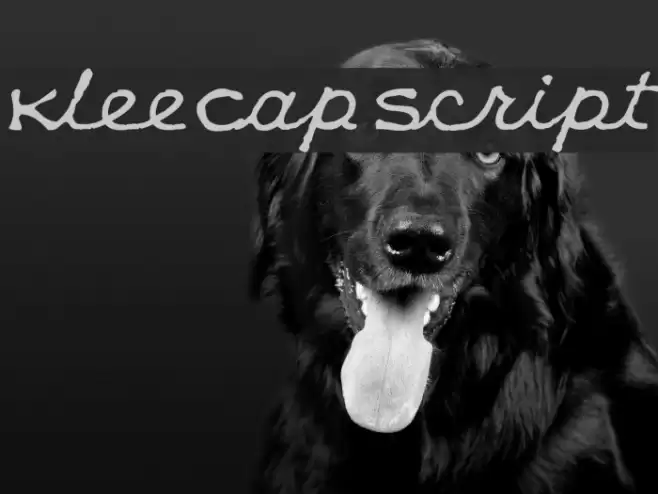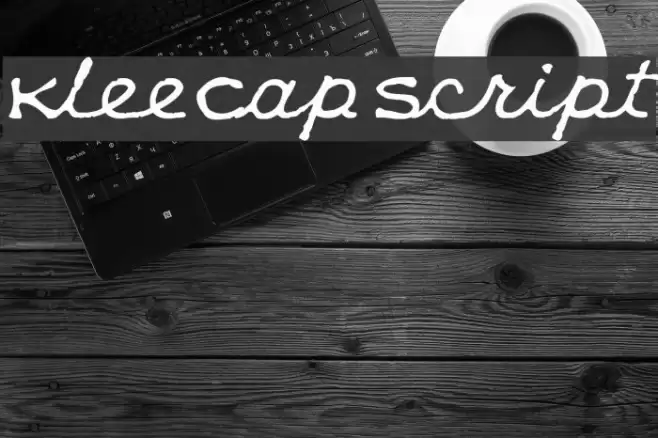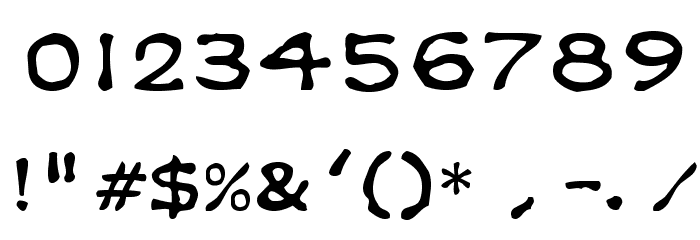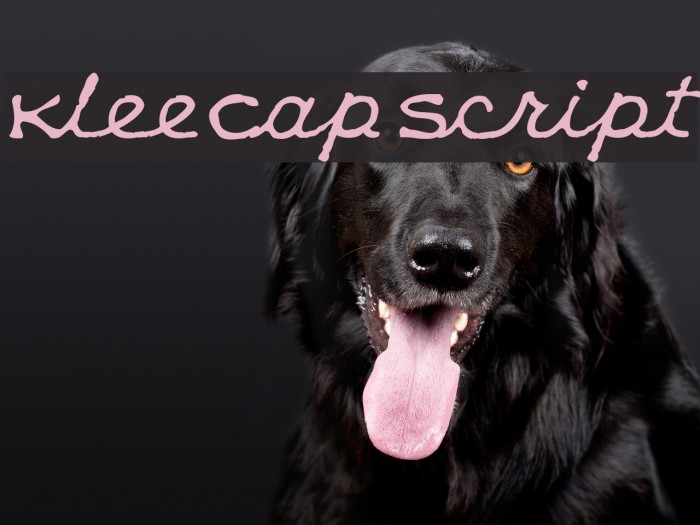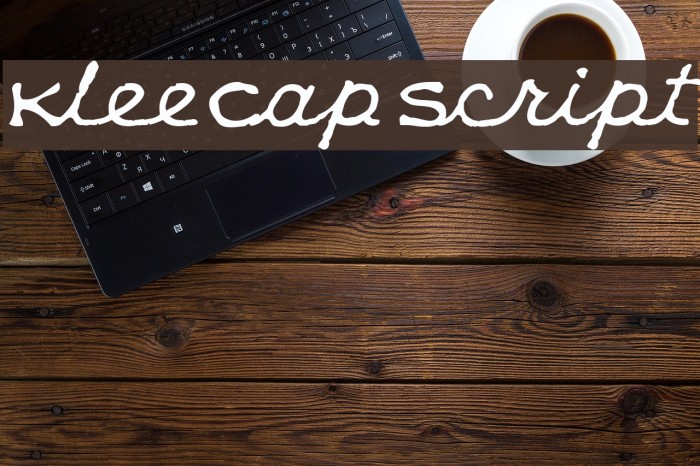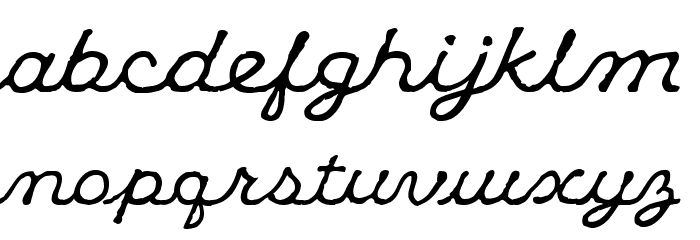
KleeCapScript Font
KleeCapScript Description
This font features a playful and casual script style, characterized by its fluid and connected strokes that mimic natural handwriting. The uppercase letters are bold and slightly rounded, while the lowercase letters maintain a consistent flow with a slight slant, enhancing the handwritten feel. The numerals are distinct and easy to read, with a uniform thickness that matches the letters. Special characters are creatively designed, maintaining the overall aesthetic of the font. The font's organic and informal style makes it suitable for projects that require a personal touch.
A playful, casual script font with fluid, connected strokes and a handwritten feel from Uncategorized fonts.
- Proposed Projects: Ideal for greeting cards, invitations, personal branding, and creative projects that require a personal, handwritten touch.
- Overall Style: Casual, Handwritten
- Use Case: Logos, Invitations, Greeting Cards